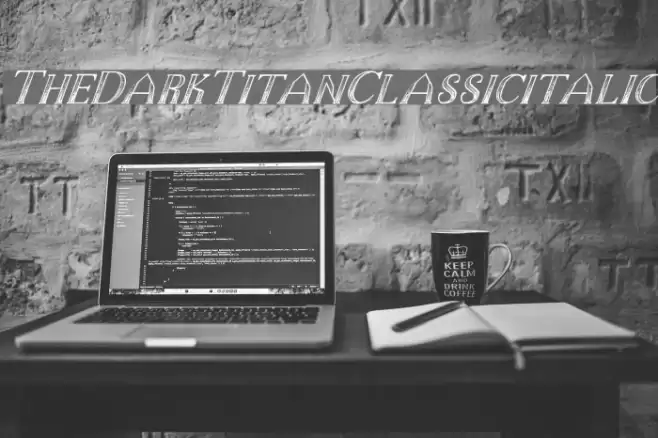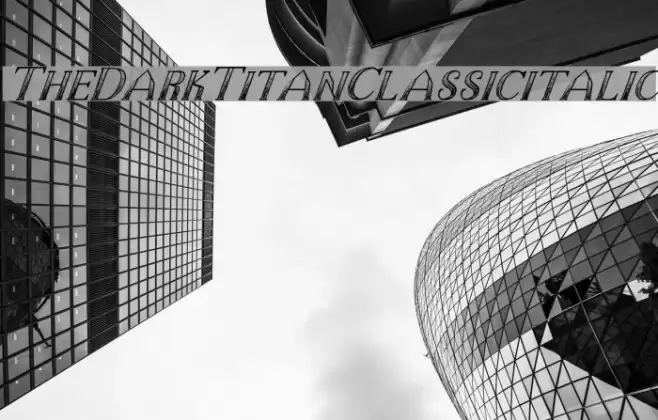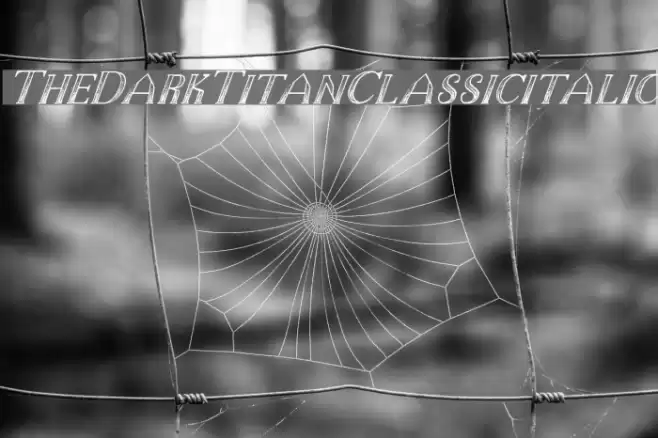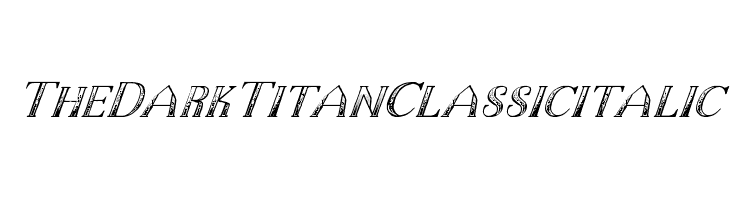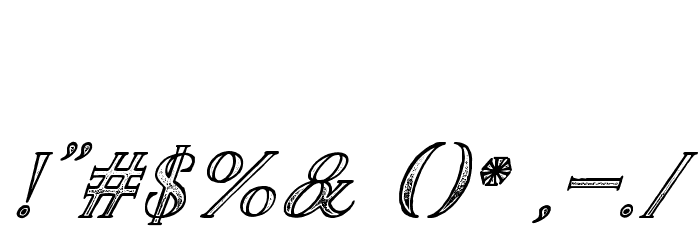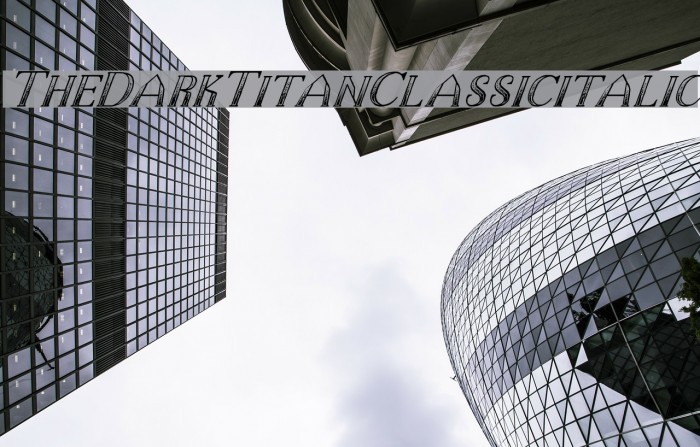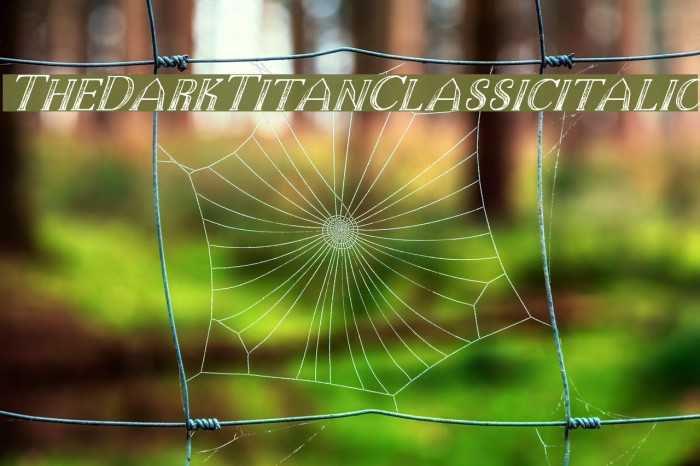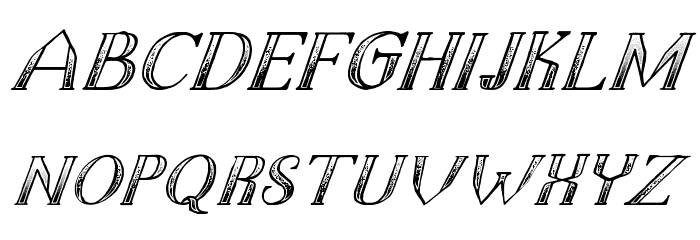
TheDarkTitanClassicitalic
This font features a bold and dynamic design with a distinct italic slant, giving it a sense of movement and energy. The characters are outlined with a textured, sketch-like appearance, adding a unique and artistic flair. The uppercase letters are particularly striking, with sharp angles and a strong presence. The lowercase letters maintain the same style, ensuring consistency throughout the text. The numbers and special characters are equally well-crafted, making this font versatile for various uses. Its decorative style makes it ideal for projects that require a bold statement.
A bold, italic font with a textured, sketch-like appearance and strong decorative elements.
- Proposed Projects: Ideal for posters, logos, branding, and any project that requires a bold and artistic touch.
- Overall Style: Decorative
- Use Case: Headlines, Logos, Posters